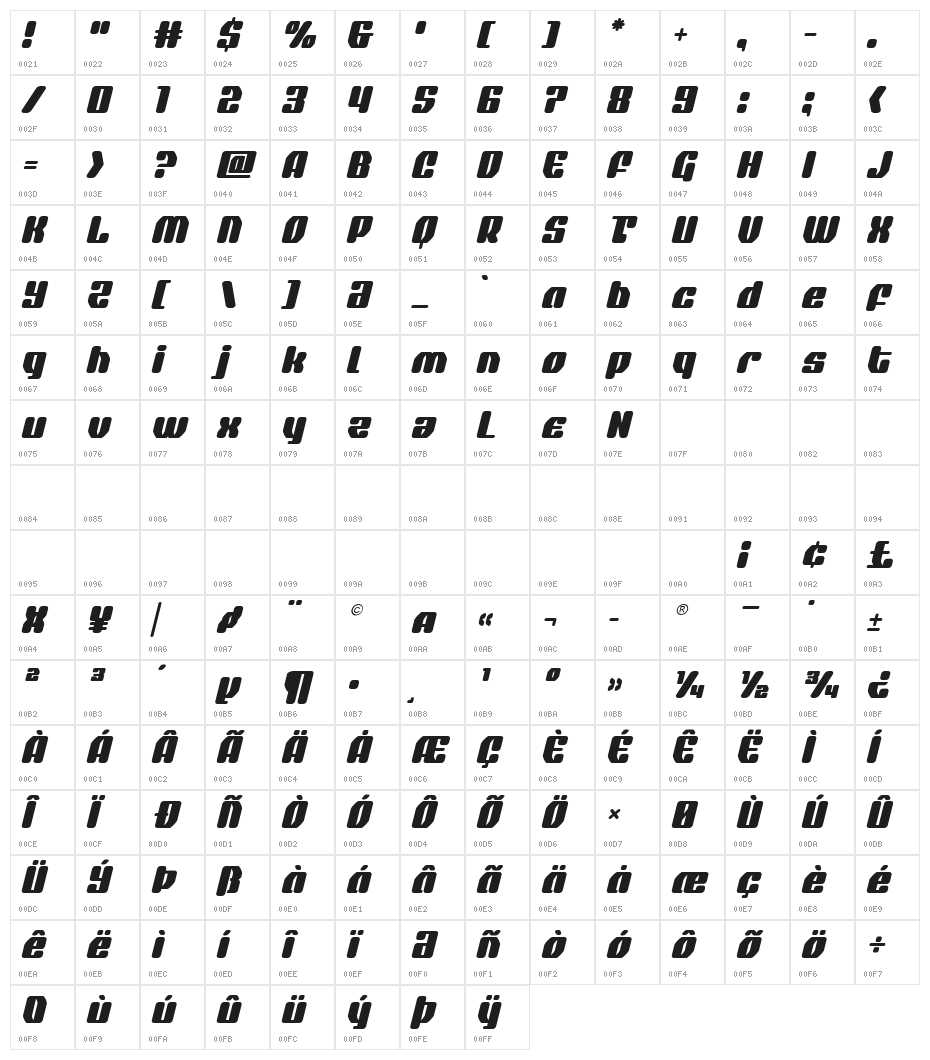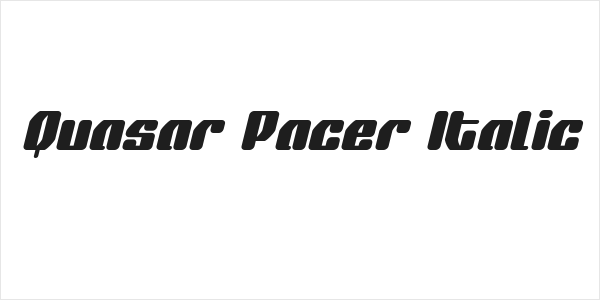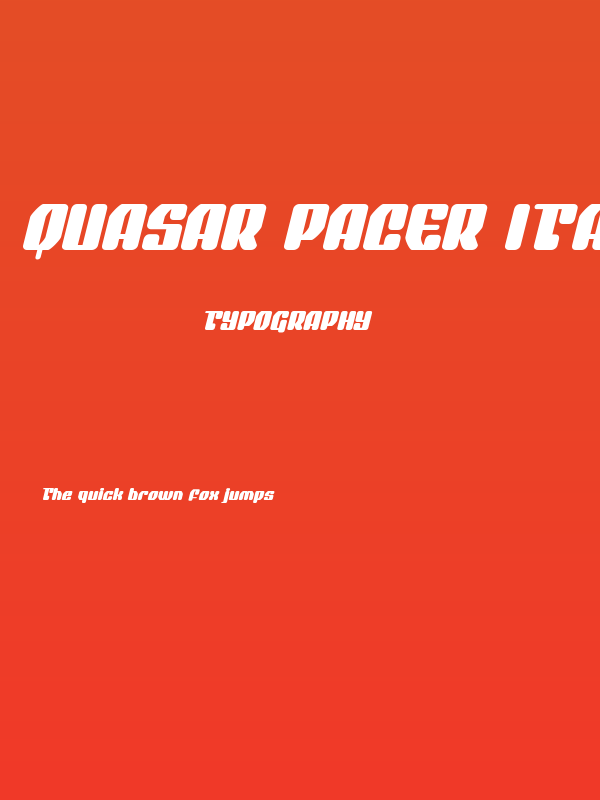
Quasar Pacer Italic Font
Quasar Pacer Italic Description
This font features a bold, italicized style with a futuristic and dynamic appearance. The characters are wide and have a strong presence, with rounded edges and a slightly condensed form. The strokes are thick, providing a high contrast that enhances readability while maintaining a unique aesthetic. The design is modern and sleek, suitable for projects that require a bold statement. The uppercase and lowercase letters are consistent in style, with numerals and special characters that complement the overall look. This font is ideal for use in headlines, posters, and branding materials where a contemporary and impactful design is desired.
| Proposed Projects | Ideal for futuristic branding, dynamic posters, modern headlines, and eye-catching advertisements. |